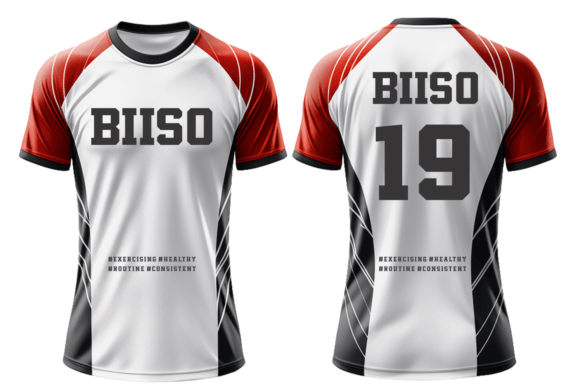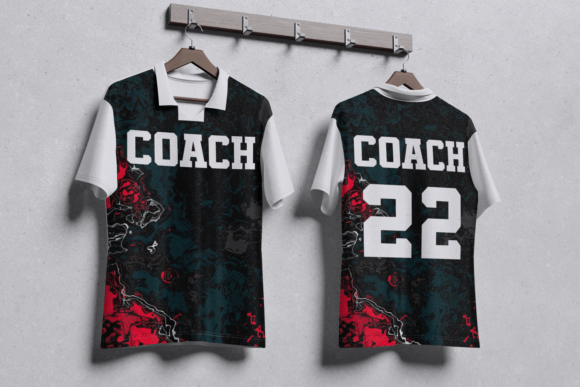
Sporty Sports Font
Immerse yourself in the dynamic world of athletics with the ‘Sporty Sports Sport’ font. This captivating typeface takes inspiration from the energetic spirit of sporting events, blending jersey and college aesthetics to reflect both on-field agility and academic prowess. The outlined design of the Sport Alphabet offers a distinctive appeal, infusing the energy of a collegiate sports meet right on your canvas. Resonate with the vigor of competitive sports as you discover different ways to utilize this versatile alphabet design. Adopted from traditional jersey fonts and skillfully integrated with collegiate typography, this font transcends from active to scholarly settings seamlessly. Bring out the team spirit in your projects with the ‘Sporty Sports Sport’ font!